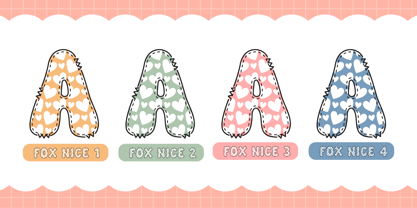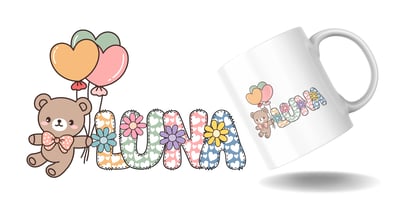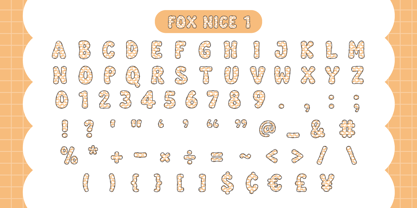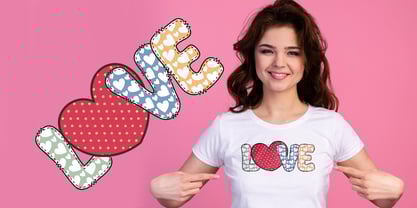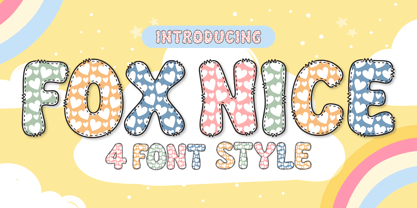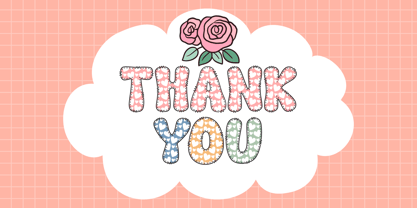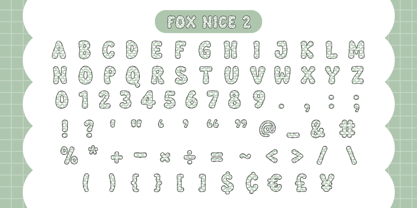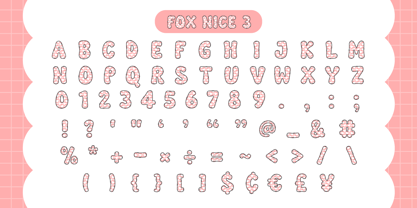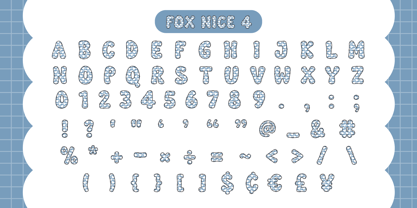
Fox Nice
von Fox7
Die Schriftfamilie Fox Nice wurde von Rattana Rattanawan entworfen und von Fox7 veröffentlicht. Fox Nice enthält 4 Stile und Familienpaketoptionen.
Fox Nice is a delightful and playful font adorned with a charming heart pattern, perfect for adding a touch of sweetness to any project. this font offers four lovely pastel colors to suit all your creative needs. Whether you're designing Valentine’s Day cards, wedding invitations, romantic quotes, Instagram posts, love letters, gift tags, or personalized stationery, Fox Nice helps you infuse every creation with love and warmth.